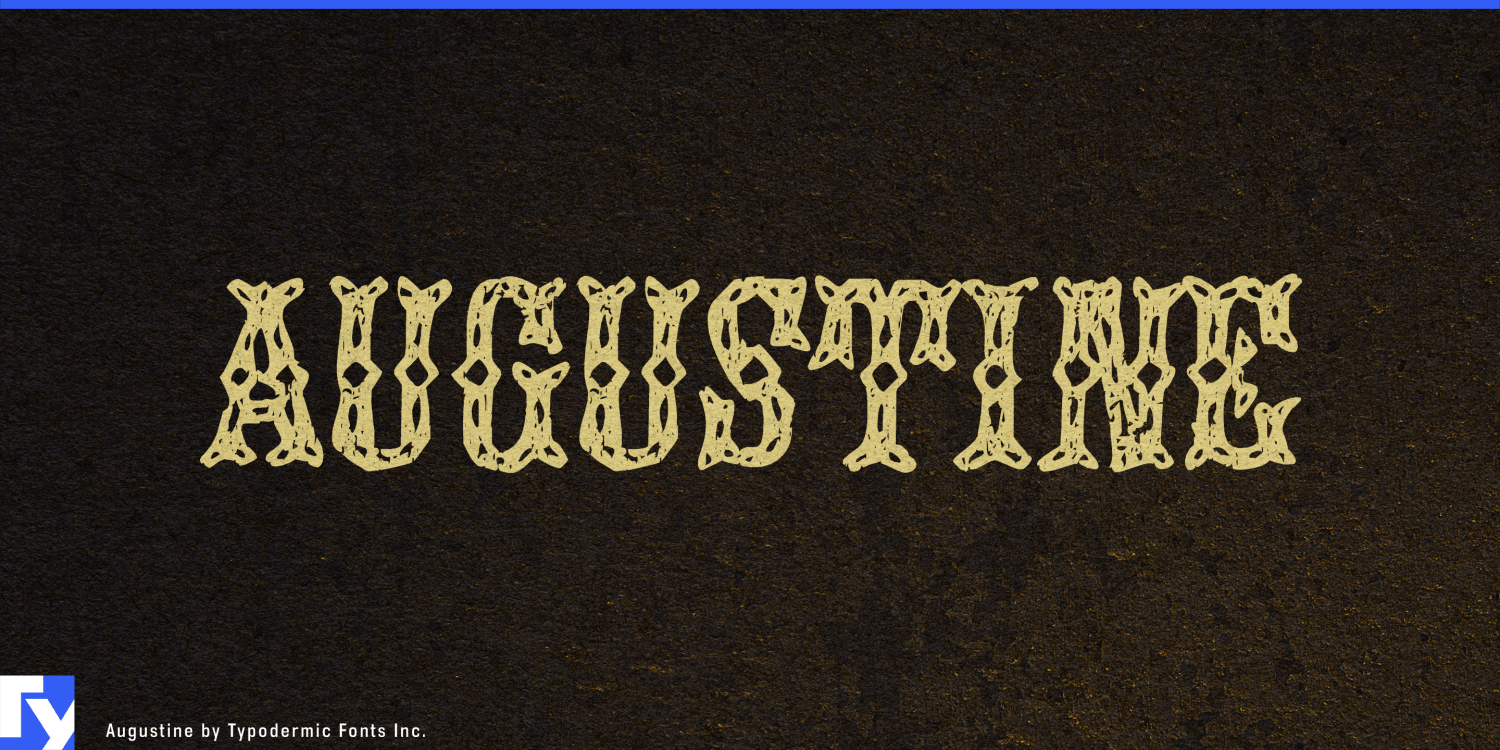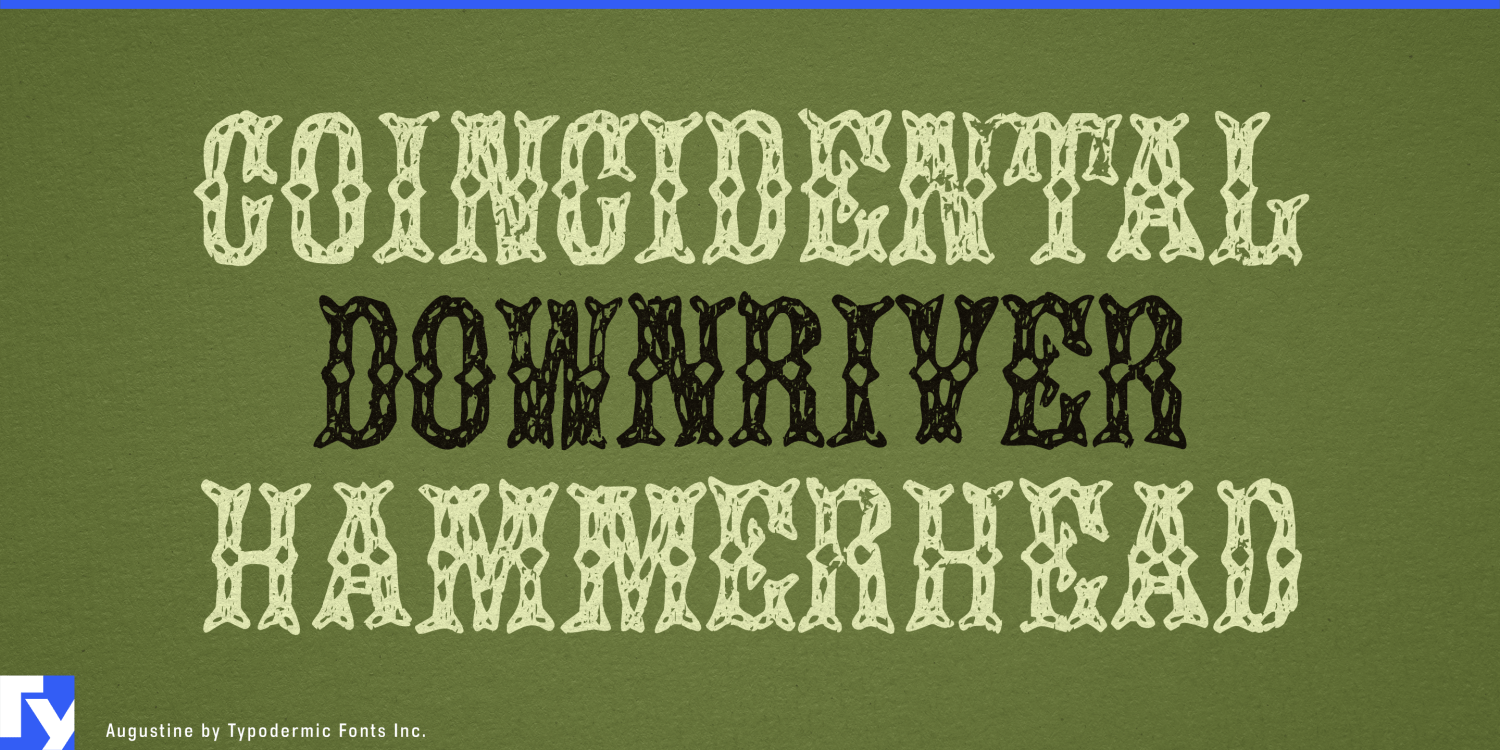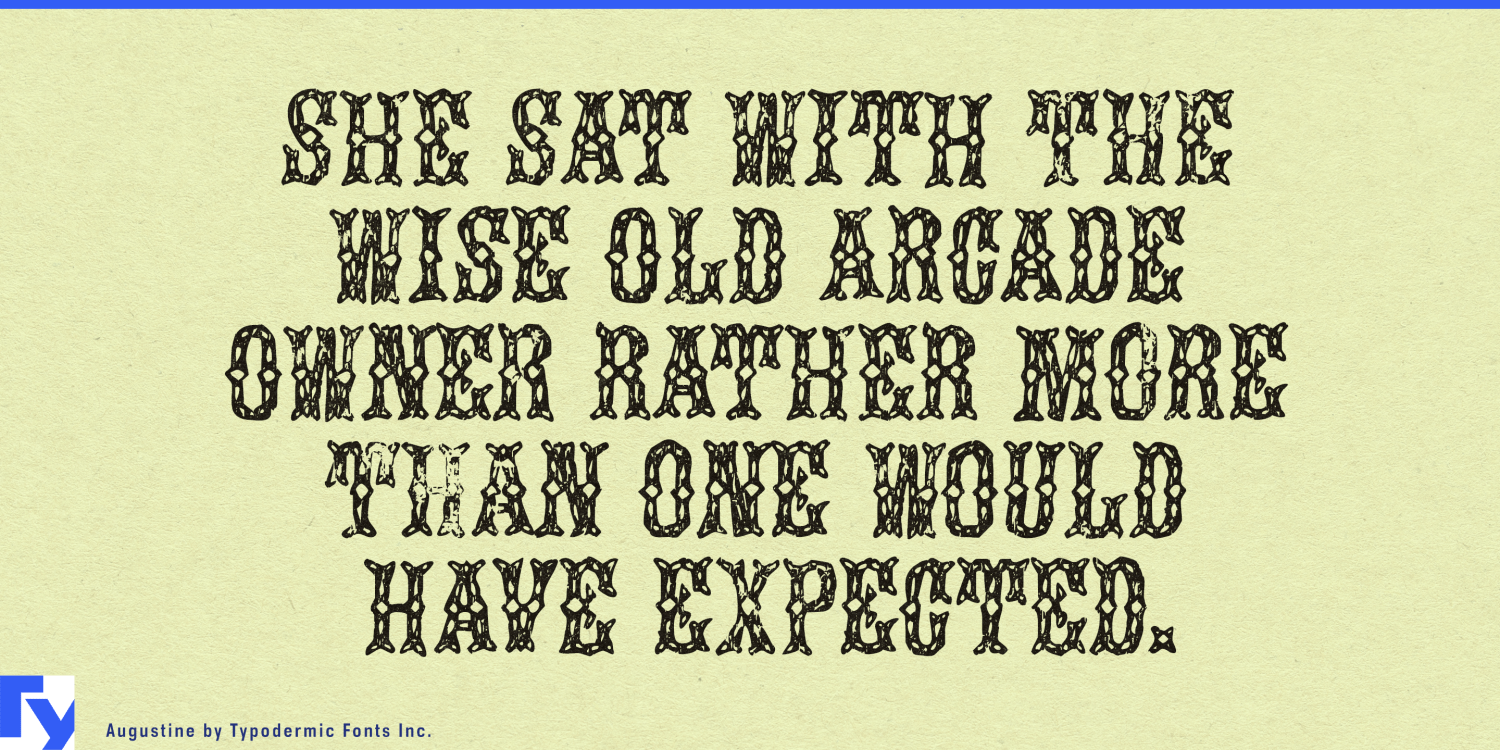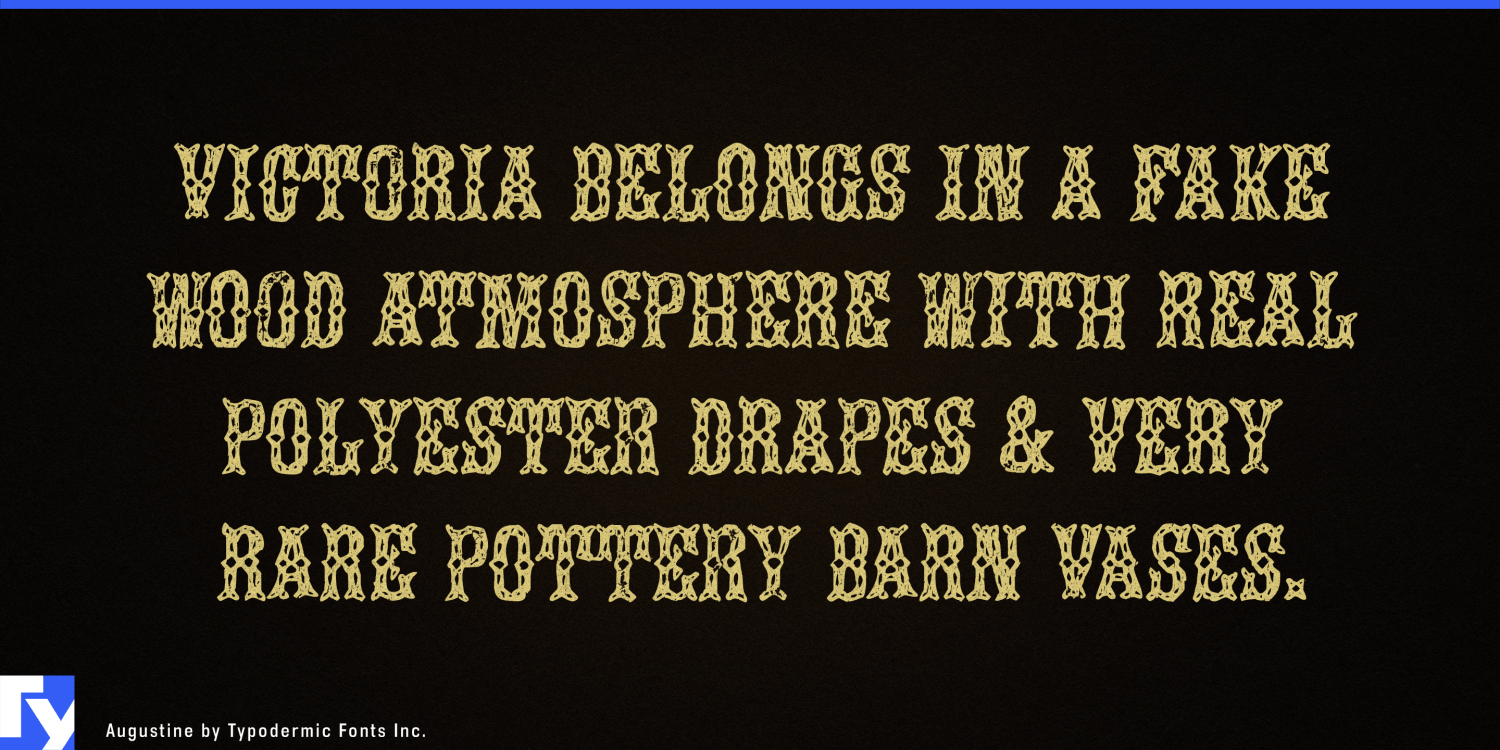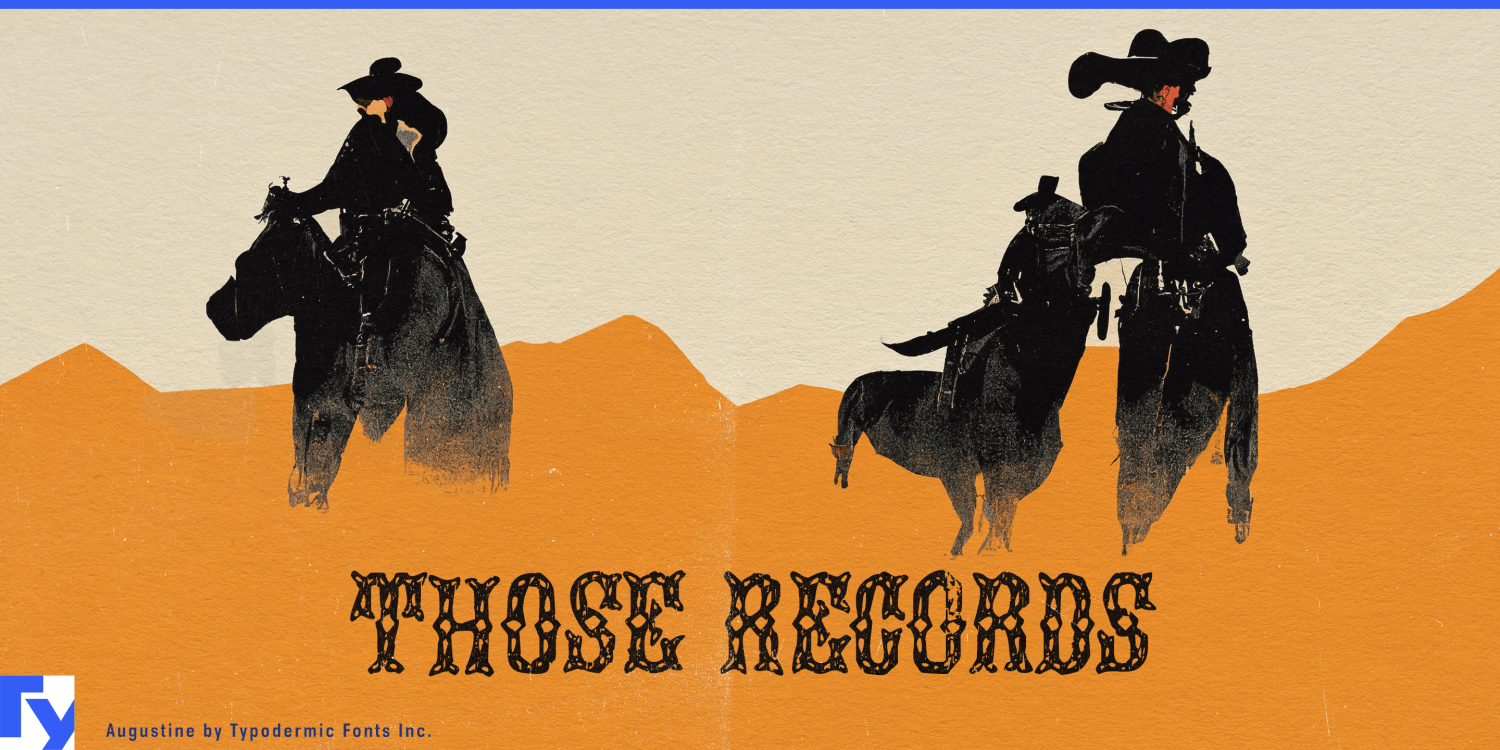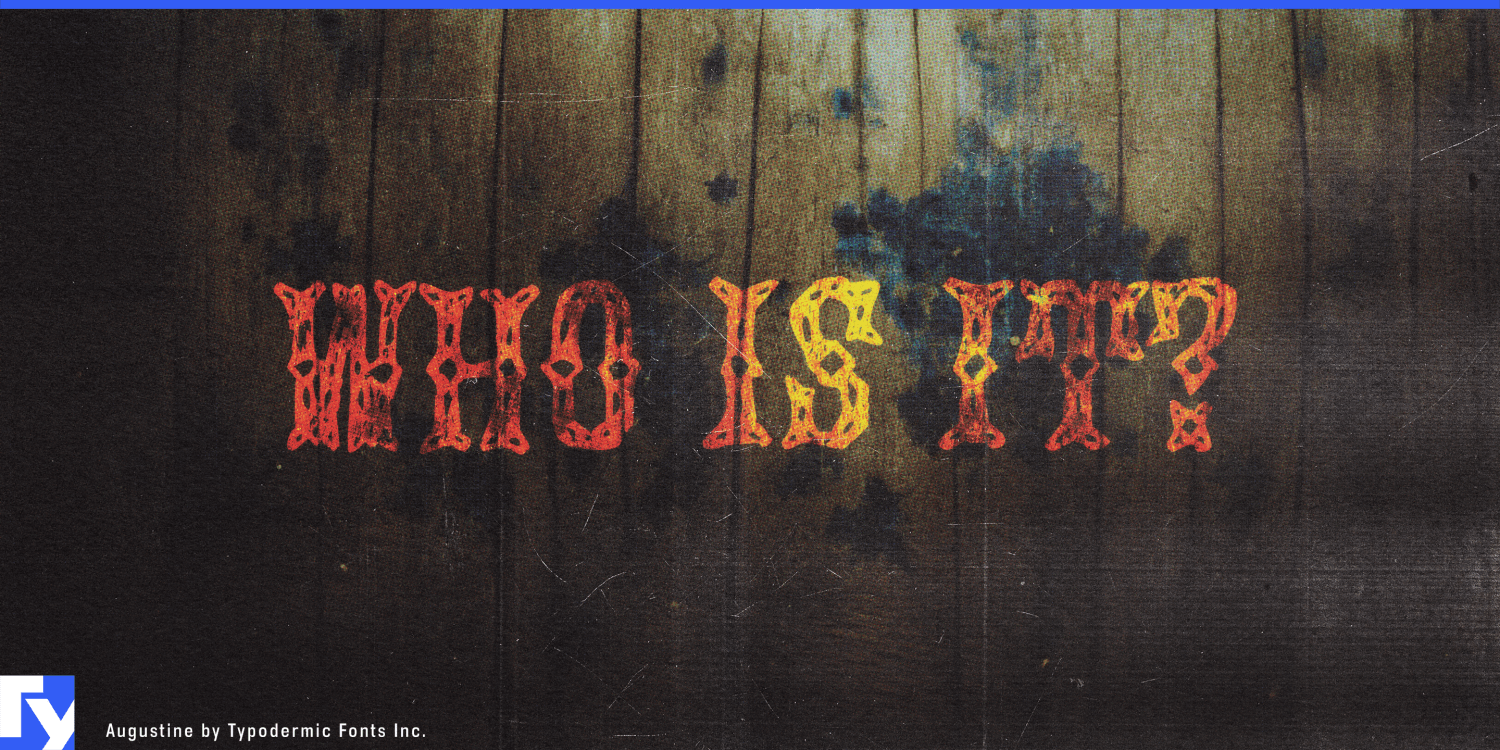
Augustine
About Augustine
Step into the world of Augustine, where each letter is handcrafted. It’s a rebellion against the mundane, a celebration of the imperfect, and an invitation to slow down and savor every word. Augustine’s Tuscan-inspired design marries vintage…